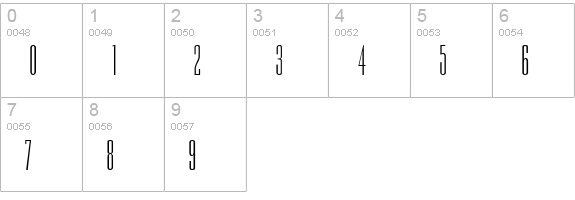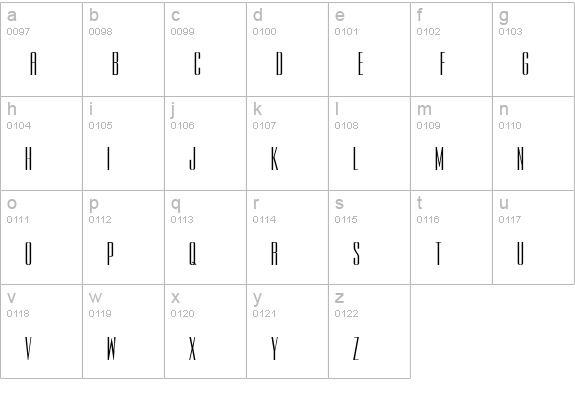
Rothman Regular is the standard, neutral variant in the Rothman typeface family \xE2\x80\x94 well suited to general body text, paragraphs, and standard typographic work.
Rothman Regular font is a versatile and elegant typeface that combines modernity with classic design elements. Its clean lines and balanced proportions make it perfect for a wide range of design projects, from branding to editorial design. Whether you're creating a sleek logo or crafting a sophisticated magazine layout, Rothman Regular will add a touch of sophistication to your work. The best part? Rothman Regular is available for free download at FontsMarket.com. This means you can easily access this high-quality font without any cost, making it a valuable addition to your font library. Don't miss out on the opportunity to elevate your designs with the timeless beauty of Rothman Regular. Download it today and start creating stunning visuals that stand out from the crowd.